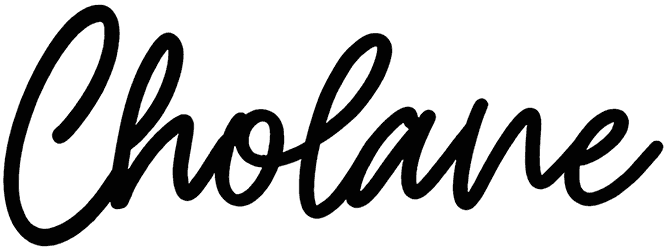
Cholane Font
Cholane font has that smooth script confidence that makes a design feel instantly more polished, like the headline already knows it belongs on a boutique label. Its flowing curves bring a soft romantic touch, but the strokes still feel clear enough for logos, invitations, and packaging work. You get elegance without that overdecorated look that sometimes makes script fonts exhausting.
Use Cholane font for wedding stationery, beauty branding, candle labels, café quotes, perfume packaging, or sweet product tags. Pair this handwritten font with cream tones, floral photography, and a clean serif, and the whole layout starts feeling calm, graceful, and properly finished.